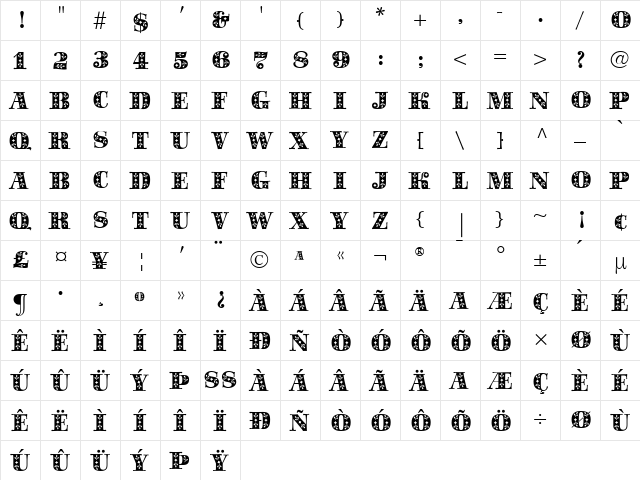
Saphir Regular
Design Context for Saphir Typeface
Saphir is a composed and adaptable typeface that performs quietly and consistently across a wide range of design contexts.